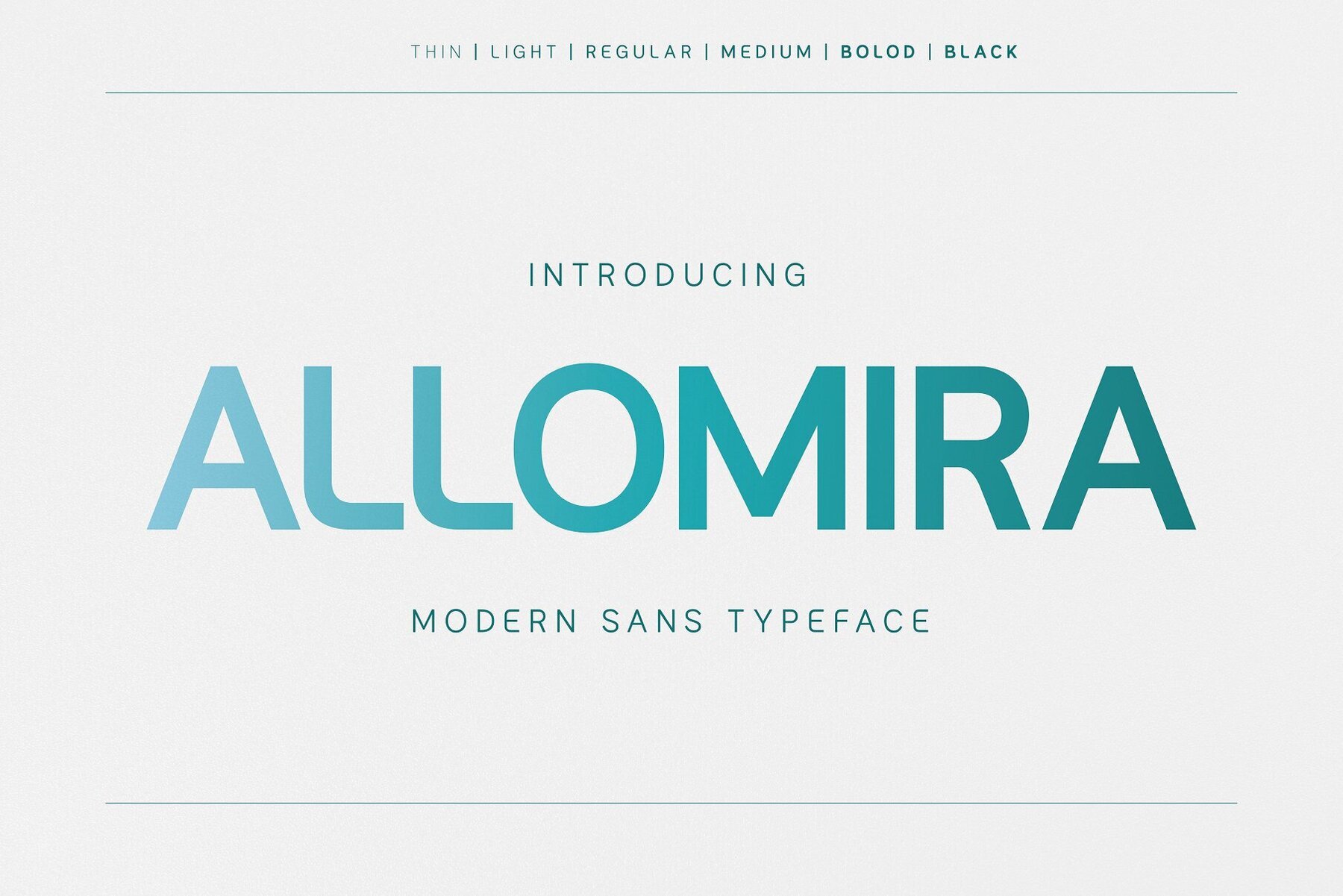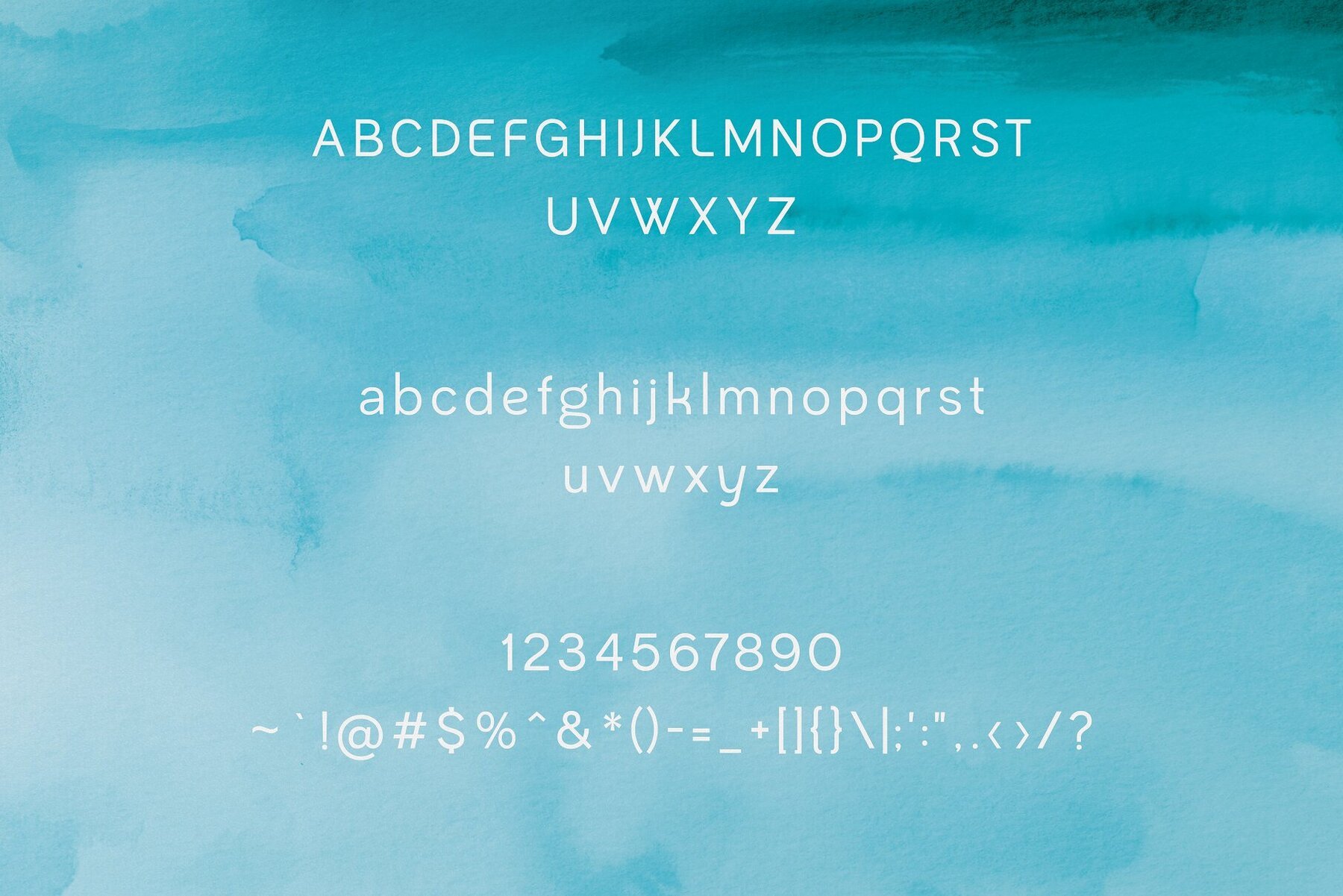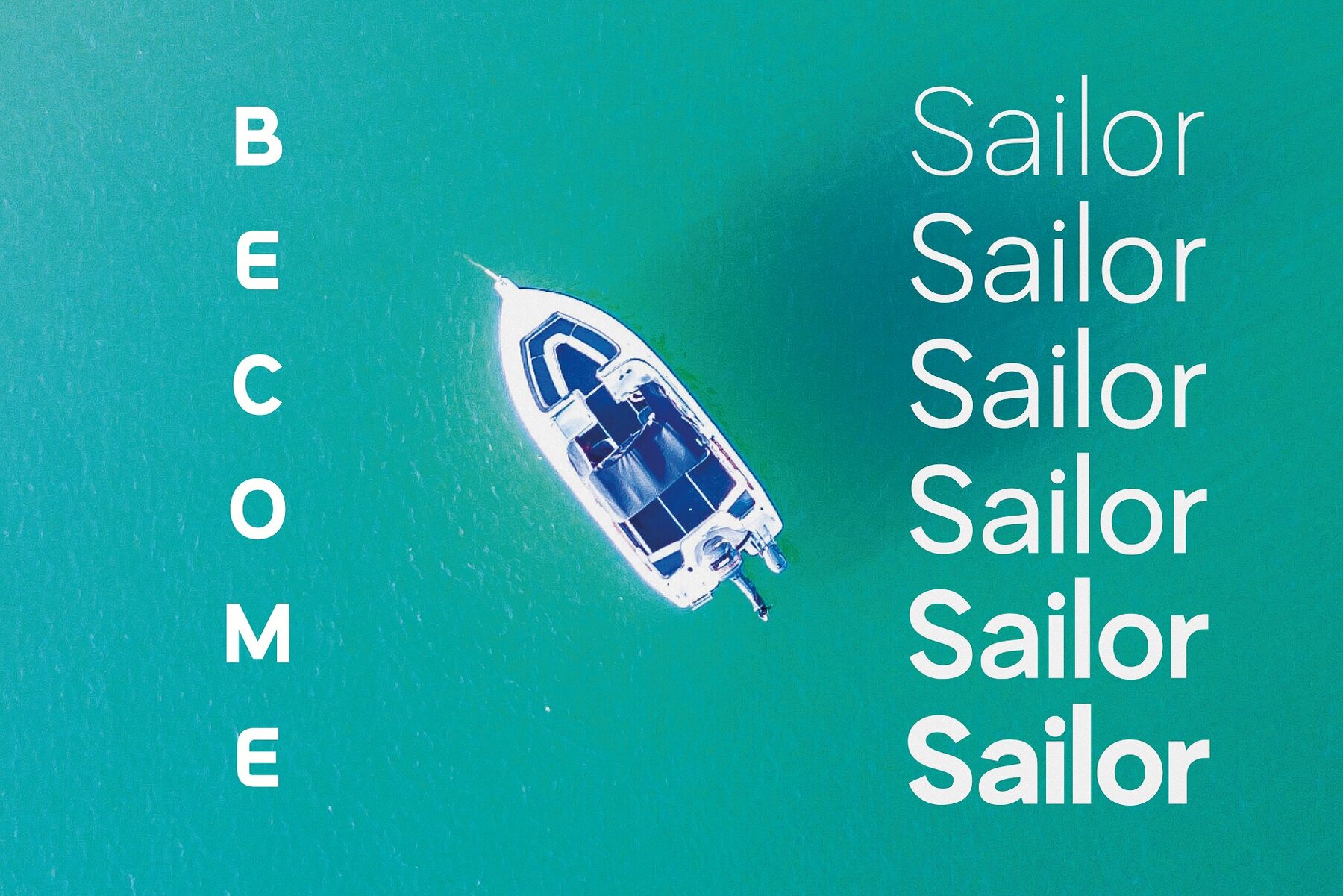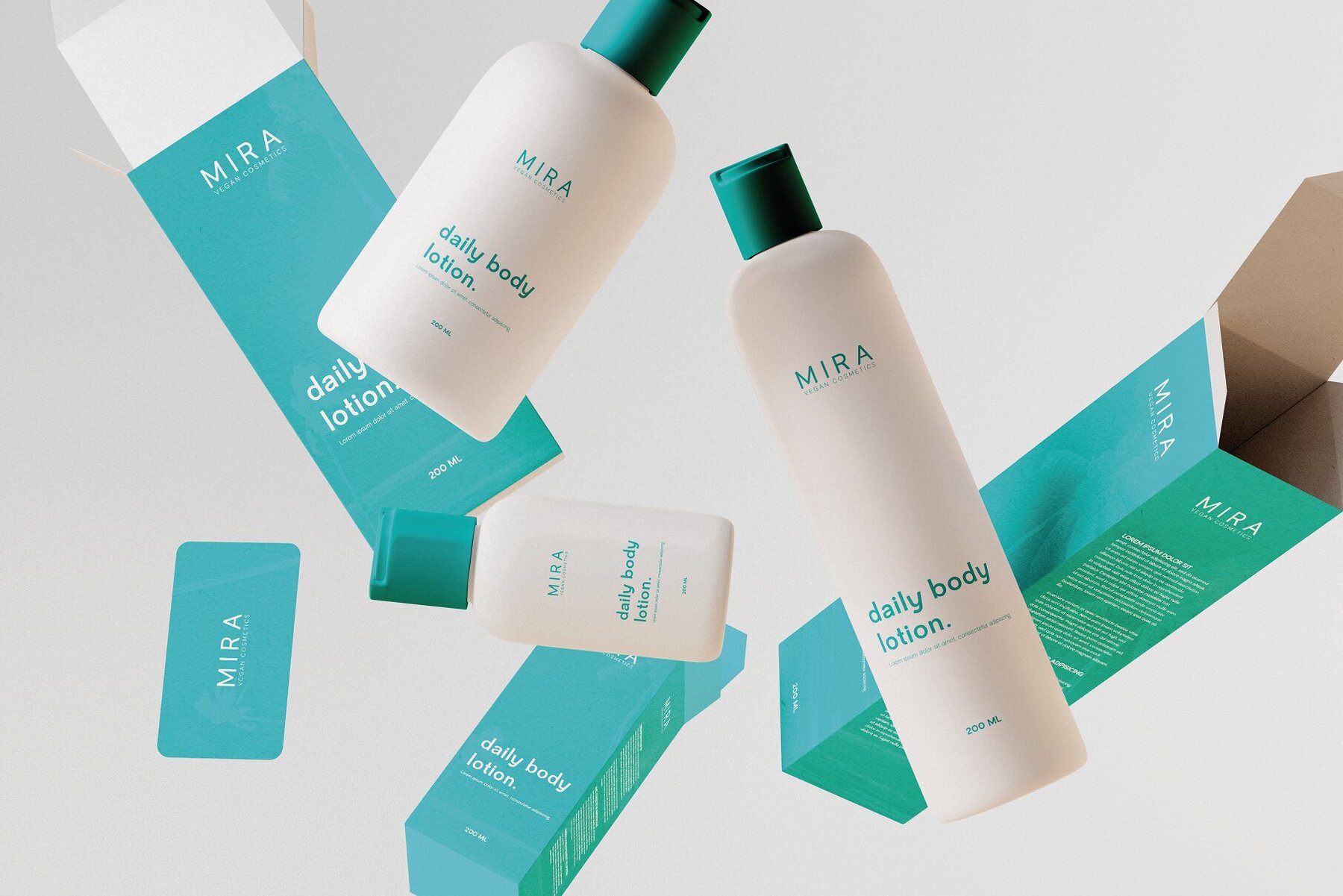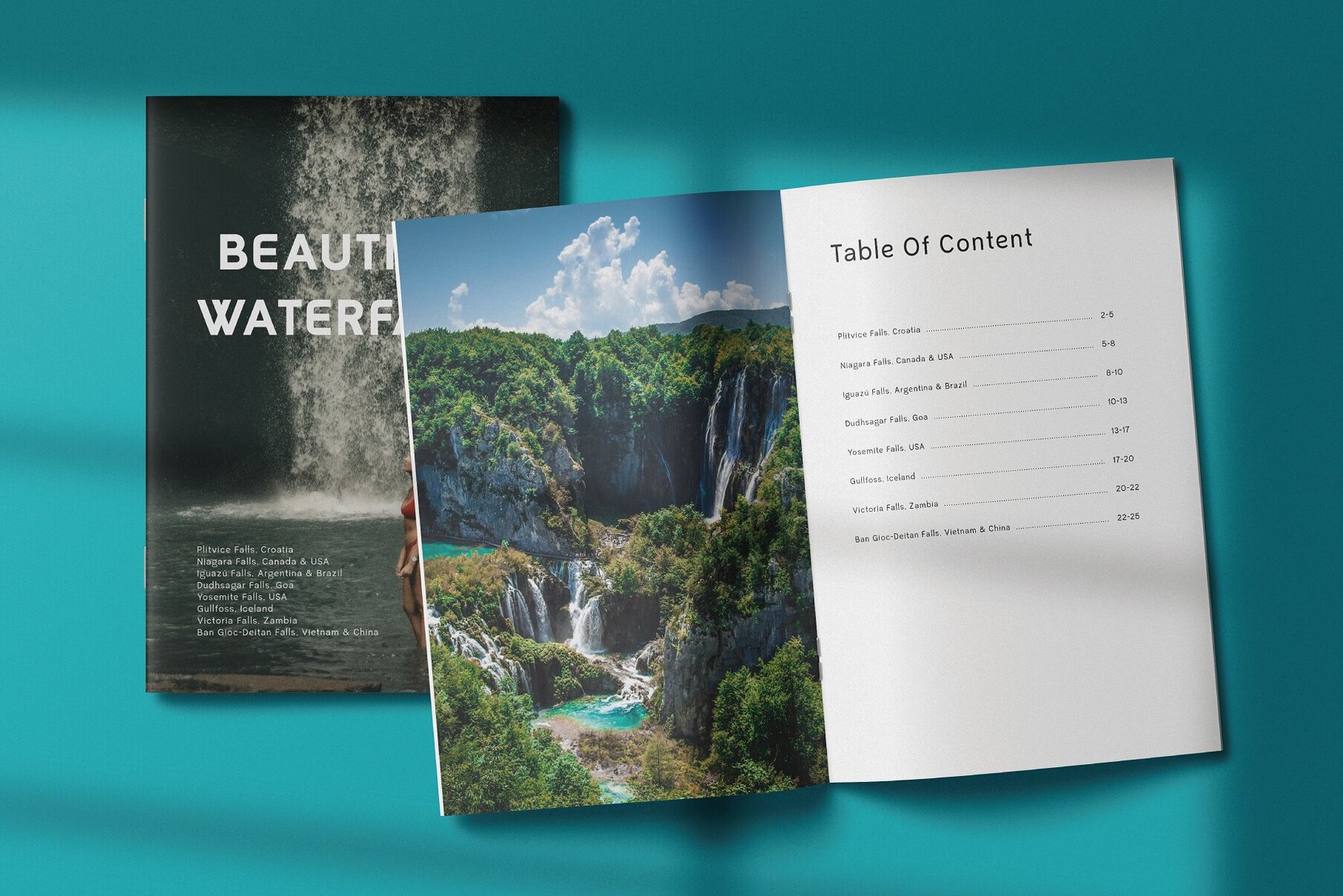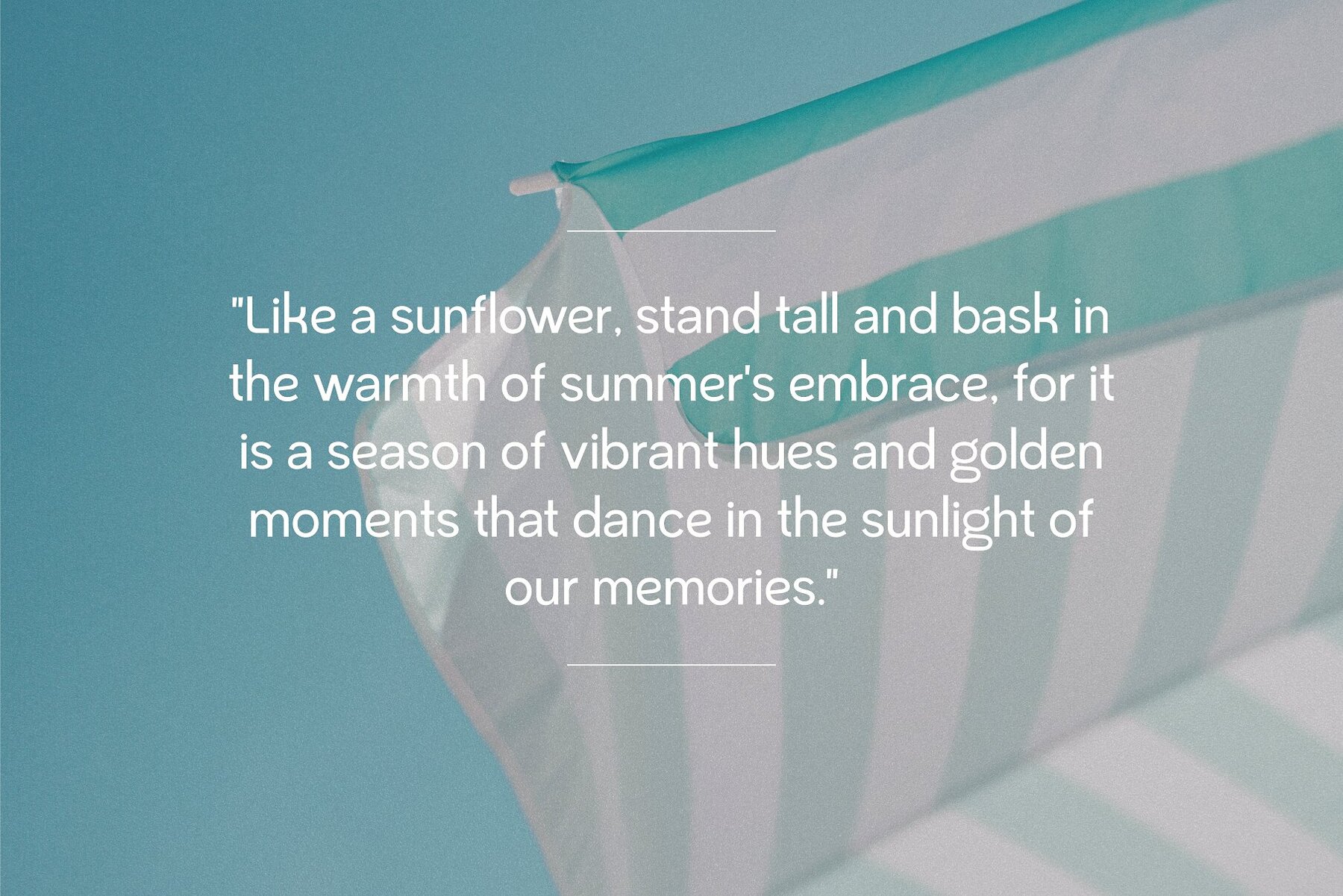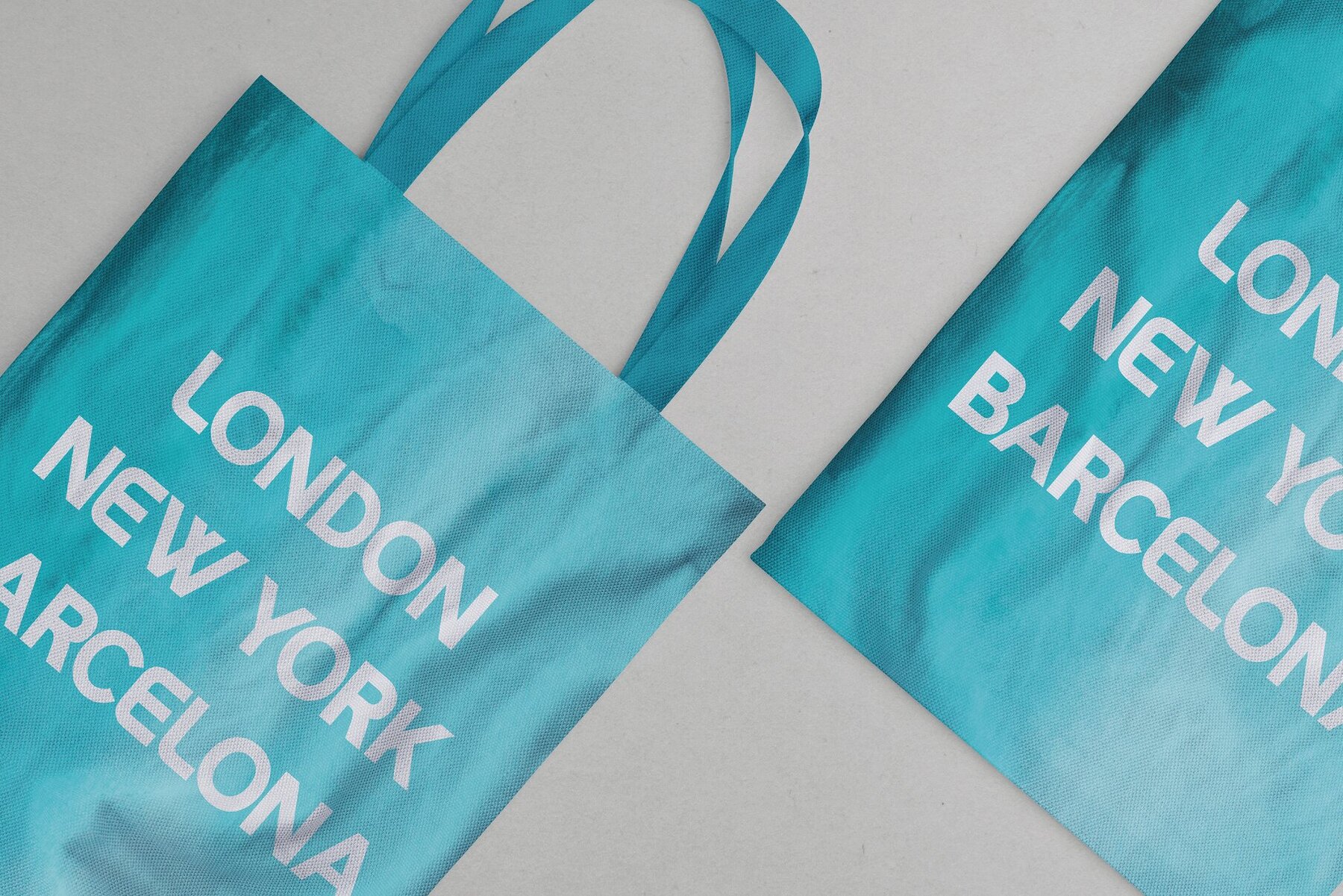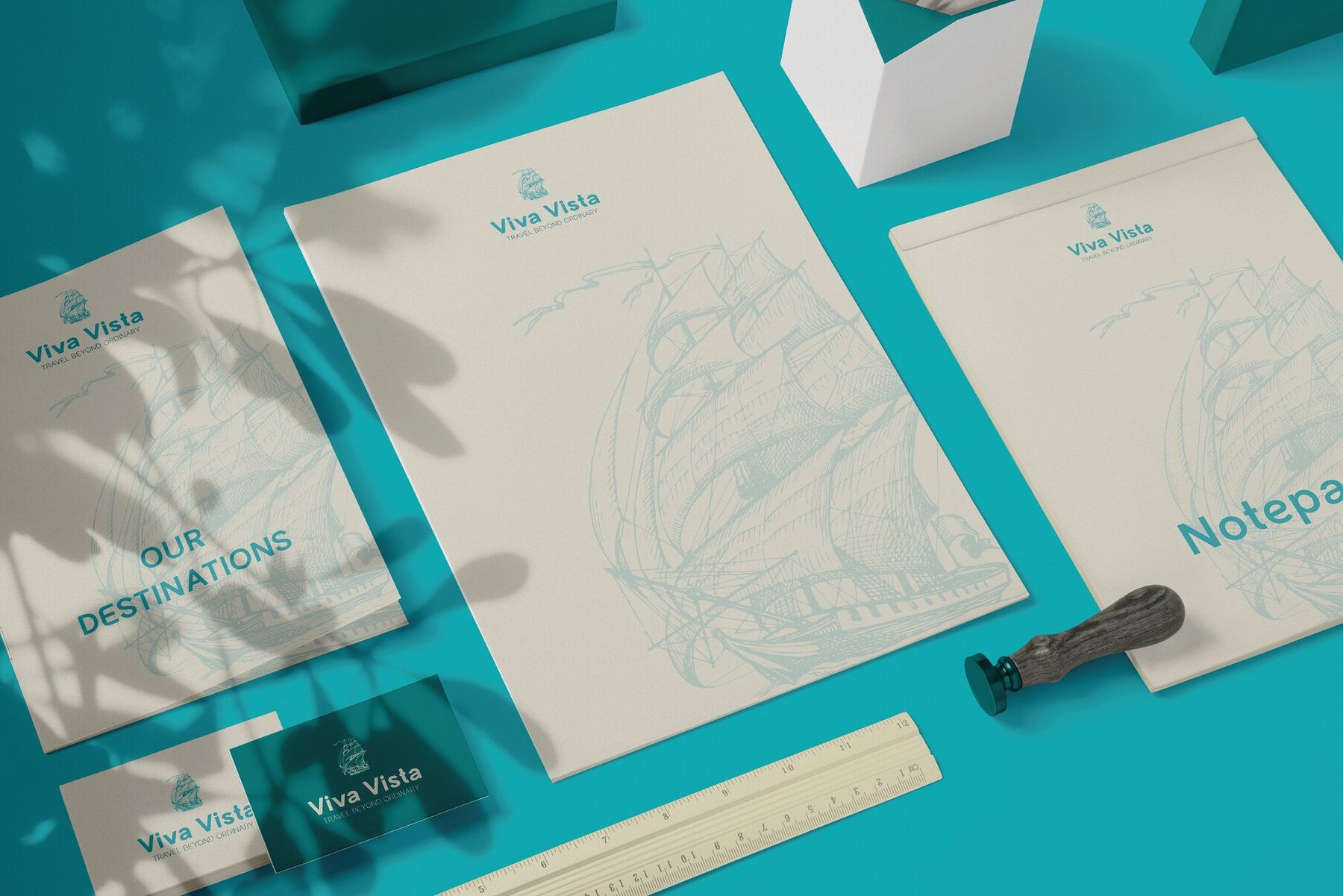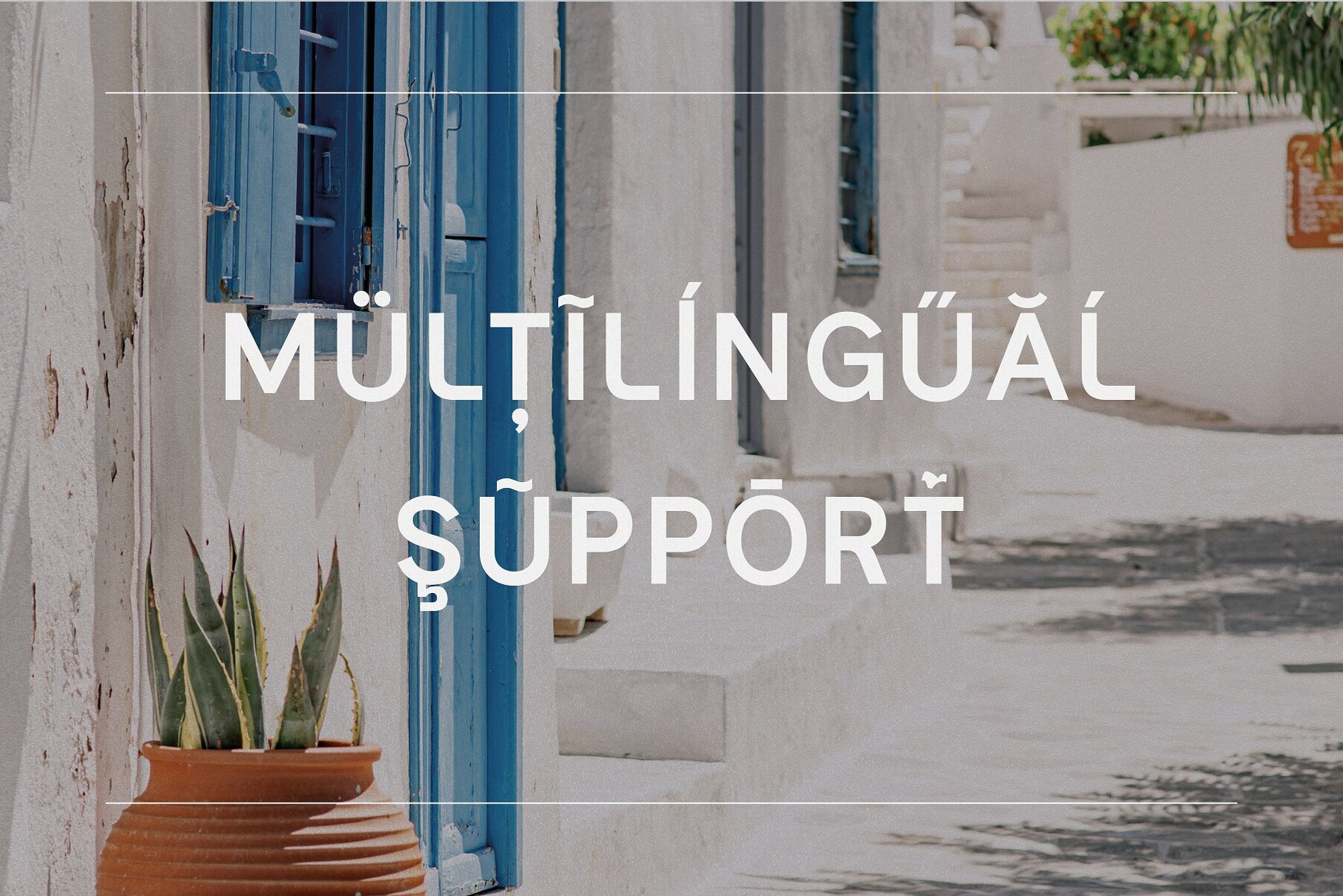
Allomira Font
Allomira is a contemporary sans-serif typeface that embodies elegance and versatility in its design. Crafted with a modern aesthetic, Allomira stands out for its clean, crisp lines and subtle curves, lending it a sophisticated yet approachable look. The typeface boasts a multilingual character set, ensuring seamless application across diverse languages, making it an ideal choice for global corporate branding and communication. Its excellent legibility and clarity, even in small sizes, make Allomira a go-to font for both print and digital media. Offering six distinct weights, from light to bold, Allomira provides a wide range of stylistic options to cater to various design needs. This flexibility allows designers to create compelling and cohesive visual hierarchies in their projects. The typeface’s versatility is further enhanced by its compatibility with multiple applications, from business presentations to marketing materials. With its perfect blend of contemporary style and professional functionality, Allomira is set to become a staple in the toolkit of designers who aim to elevate their corporate projects with a touch of sophistication and class.